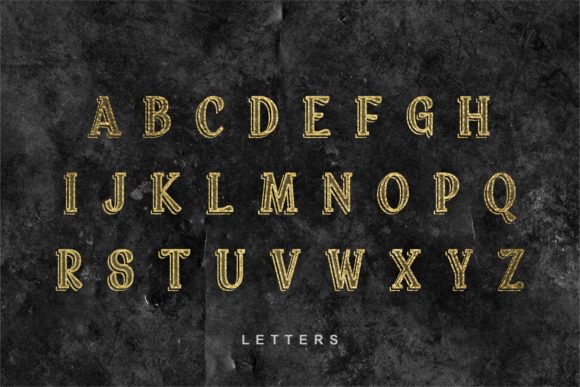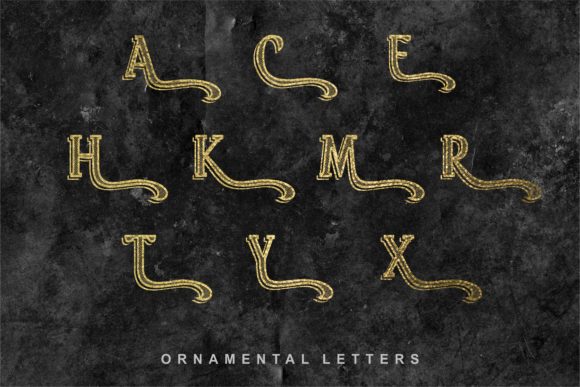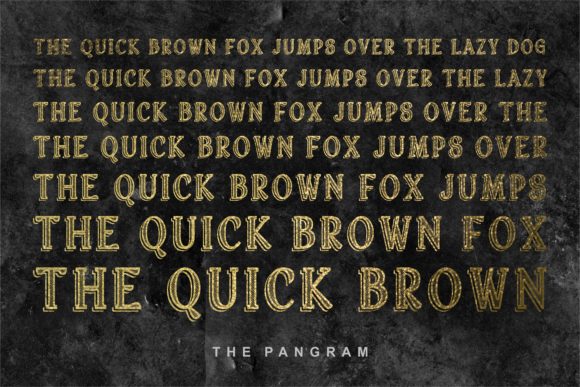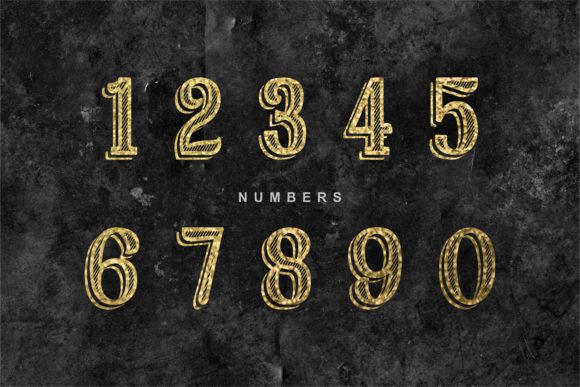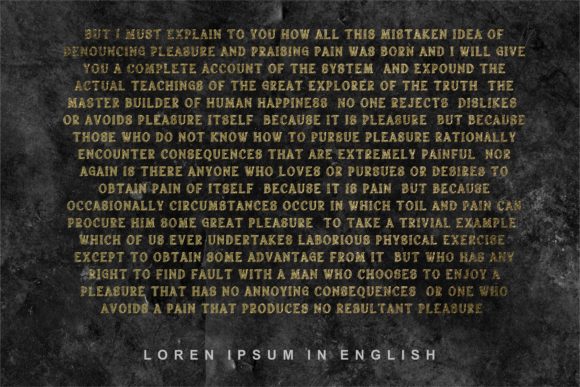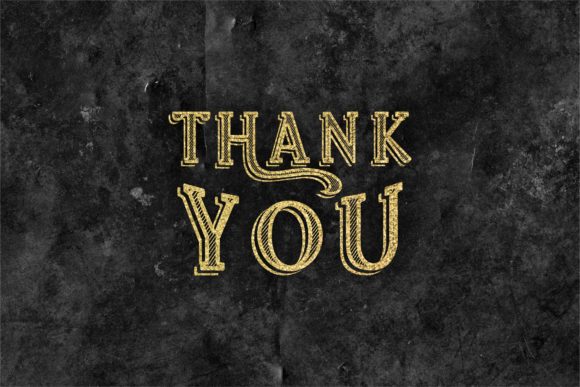
Introducing Broker Font: The Ultimate Choice for Bold and Professional Designs
In the world of typography, fonts play a crucial role in conveying the tone and personality of a brand. For designers and crafters looking for a strong and dependable font, Broker Font is an excellent choice. Inspired by the worlds of business and finance, this font is perfect for creating bold and professional designs that make a lasting impression.
The Characteristics of Broker Font
Broker Font is a sturdy and robust typeface that exudes confidence and stability. Its concrete basement and sharp edges give it a unique and modern look that is sure to grab attention. The font’s design is inspired by the industrial and financial sectors, making it an ideal choice for businesses and organizations looking for a professional and dependable font.
Key Features of Broker Font
- Strong and Conceded Design: Broker Font has a bold and robust design that makes it perfect for headlines, titles, and other display text.
- Concrete Basement and Sharp Edges: The font’s unique design features a concrete basement and sharp edges, giving it a modern and industrial look.
- Inspired by Business and Finance: Broker Font is inspired by the worlds of business and finance, making it an ideal choice for companies and organizations looking for a professional font.
- Versatile and Adaptable: Broker Font can be used in a variety of designs, from covers and advertisement headings to website banners, logos, and more.
Use Cases for Broker Font
Broker Font is a versatile font that can be used in a variety of designs and applications. Here are some examples of how you can use Broker Font:
- Covers and Advertisement Headings: Use Broker Font to create bold and eye-catching headlines for magazines, newspapers, and online advertisements.
- Website Banners and Logos: Broker Font is perfect for creating professional and modern website banners and logos that make a lasting impression.
- Texting and Messaging: Use Broker Font to add a bold and modern touch to your text messages and social media posts.
- Branding and Packaging: Broker Font can be used for branding and packaging designs, such as labels, tags, and business cards.
Why Choose Broker Font?
Broker Font is a unique and versatile font that offers a range of benefits for designers and crafters. Here are some reasons why you should choose Broker Font:
- Professional and Modern Look: Broker Font has a professional and modern look that is sure to impress your clients and audience.
- Highly Readable: The font is highly readable, even at small sizes, making it perfect for body text and other applications.
- Unique and Creative: Broker Font has a unique and creative design that will help your designs stand out from the crowd.
In conclusion, Broker Font is a strong and dependable font that is perfect for designers and crafters looking for a professional and modern font. Its unique design, versatility, and readability make it an ideal choice for a range of designs and applications. Whether you’re creating a website, brochure, or social media post, Broker Font is sure to make a lasting impression.